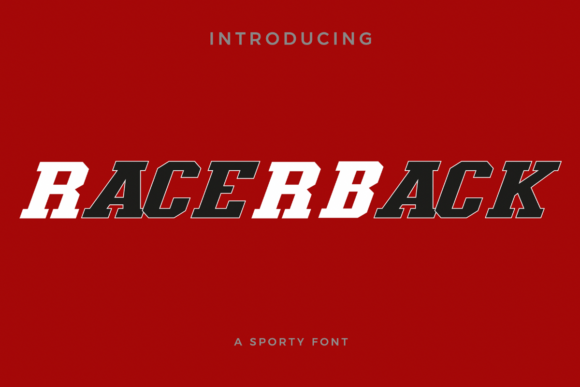
Racerback Font Review for Athletic Editorial Design
Last Tuesday, while finalizing the layout for a university alumni digital magazine, I found myself staring at a cover headline that felt entirely too polite. The content was vibrant, celebrating decades of campus competition and community spirit, yet the typography looked like a corporate annual report. It was in that moment of editorial friction that I decided to test Racerback, an unparalleled athletic-inspired font that captures the spirit of competition and camaraderie emblematic of sports in college environments. As a slab serif typeface, it immediately transformed the static page into something with pulse and history. For publishers and designers working within the niche of collegiate storytelling or athletic branding, finding fonts that balance nostalgia with modern readability is a constant challenge, and this specific typeface offers a compelling solution for display work.
Racerback for University Magazine Covers and Alumni Newsletters
When integrating Racerback into magazine covers or newsletter headers, the font’s distinct slab serif structure provides the necessary visual weight to anchor a busy editorial layout. In my recent project, the goal was to evoke the feeling of vintage varsity jackets without making the publication look dated or unreadable on mobile screens. This innovative display font succeeds because its letterforms are grounded in traditional athletic aesthetics but refined for contemporary publishing standards. Unlike generic collegiate fonts that often suffer from poor spacing or exaggerated serifs, Racerback maintains excellent legibility even when scaled down for email subject lines or social media teasers. The bold stance of the characters creates immediate hierarchy, signaling to readers that the content inside celebrates achievement and tradition. For editorial designers managing seasonal publications, this typeface serves as a reliable tool for establishing a consistent brand identity across print issues and digital archives, ensuring the mood remains energetic yet professional.
Typography Hierarchy in Athletic-Themed Blog Headers
Applying Racerback to blog headers and article titles requires a thoughtful approach to scale and whitespace to maintain reader engagement. During a redesign for a collegiate sports lifestyle blog, I utilized this slab serif specifically for H1 and H2 tags to differentiate feature stories from standard news updates. The font’s inherent rhythm mimics the cadence of a chant or a scoreboard, which subtly reinforces the content's theme before the reader even processes the words. However, it is crucial to treat Racerback as a premium display asset rather than a utility player. It shines brightest when given room to breathe; tight tracking or cramped line heights can diminish its impact and reduce screen readability. When used correctly in web design, it acts as a visual hook that reduces bounce rates by promising a specific, immersive reading experience. For content creators building course PDFs or coaching workbooks, using this typeface for chapter openers or section dividers can break up dense text and re-engage the learner’s attention through typographic variety.
Pairing Racerback with Clean Sans Serif Fonts for Body Copy
Successful editorial design relies heavily on contrast, and pairing Racerback with clean sans serif fonts for body copy is essential for maintaining long-form readability. While this athletic-inspired slab serif excels at capturing attention in headlines, pull quotes, and sidebars, it is too expressive for dense paragraphs or instructional text. In my layout testing, combining Racerback with a neutral geometric sans serif created a harmonious balance that honored the spirited nature of the content while respecting the reader’s eye fatigue. This pairing strategy is particularly effective for recipe ebooks, wedding guides with a collegiate theme, or printable planners where functional clarity must coexist with decorative flair. The slab serif brings the personality and emotional resonance, while the supporting sans serif handles the heavy lifting of information delivery. Designers should avoid pairing Racerback with other high-contrast serifs or ornate scripts, as this creates visual competition that confuses the hierarchy and dilutes the brand message.
Readability Considerations for Digital and Print Layouts
Evaluating Racerback across different mediums reveals important nuances regarding legibility and technical performance in both digital and print layouts. On high-resolution displays and in print, the font’s robust serifs and solid strokes render beautifully, conveying a sense of permanence and quality that aligns with institutional pride. However, on lower-resolution screens or at very small sizes, the intricate details of the slab serifs can begin to soften, potentially affecting accessibility. For digital magazines and newsletters, I recommend reserving Racerback for large-format elements such as hero images, featured statistics, or testimonial callouts where the pixel density supports its structural complexity. In printable formats like worksheets or event programs, ensure the ink spread does not fill in the negative space of the letterforms, especially if printing on uncoated paper. Understanding these technical boundaries ensures that the font enhances the user experience rather than hindering it, preserving the integrity of the editorial vision across all touchpoints.